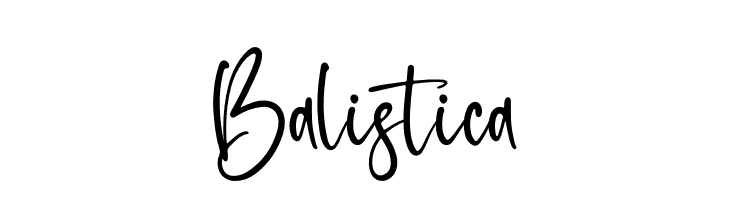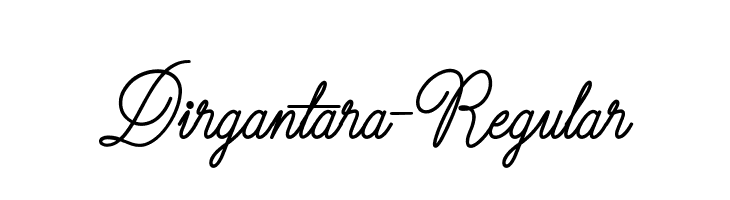
A dynamic and expressive handwritten font with fluid, energetic strokes.
A modern, elegant handwritten font with flowing, elongated characters.
A playful and energetic script font with a hand-drawn appearance.
An elegant, flowing script font with a handwritten signature style.
A dynamic, cursive handwritten font with fluid strokes.
An elegant script font with flowing, cursive characters and intricate flourishes.